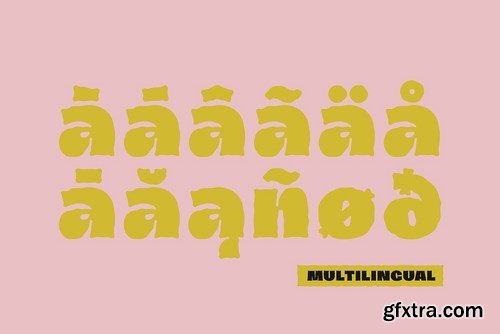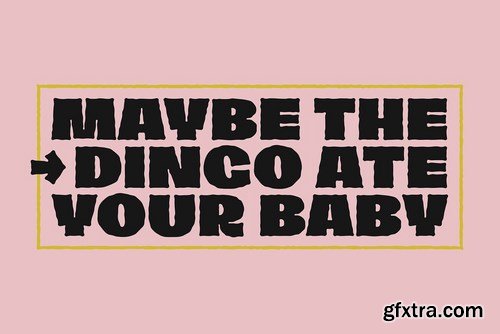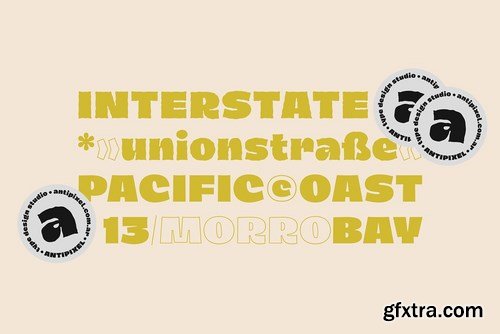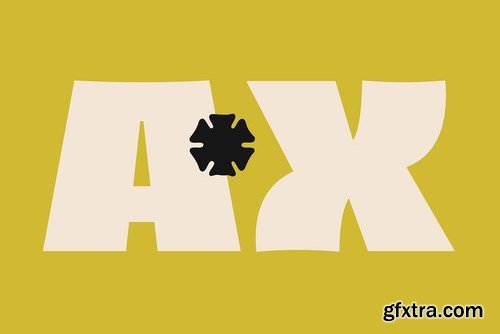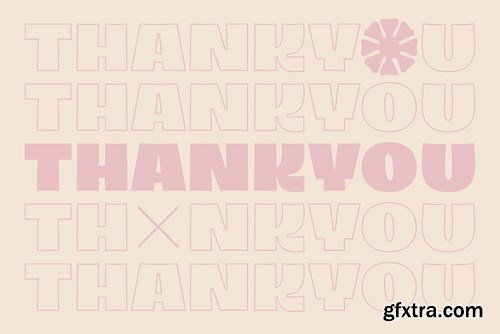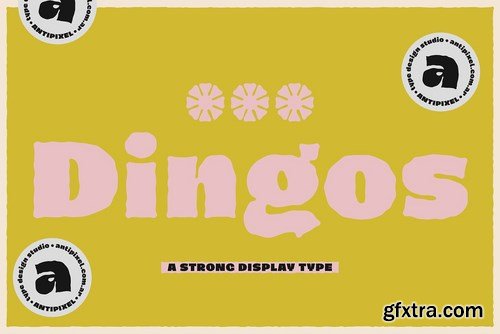
Consisting of 4 styles, Display, Display Outline, Stamp & Stamp Outline, Dingos is perfect for any medium or large use due to the precise shape of its outlines, which were hand-crafted glyph by glyph. Perfectly suited for graphic design and any display use! Some of Dingos' features are ligatures for specific character combinations, kerning, numerators, fractions for any number combinations, arrows, and a large glyph coverage to ensure an extended language support. In addition, the Stamp styles include three alternating alphabets to avoid repeating textures, providing a more natural feel. All of these, and more, will make your work distinctive and powerful!